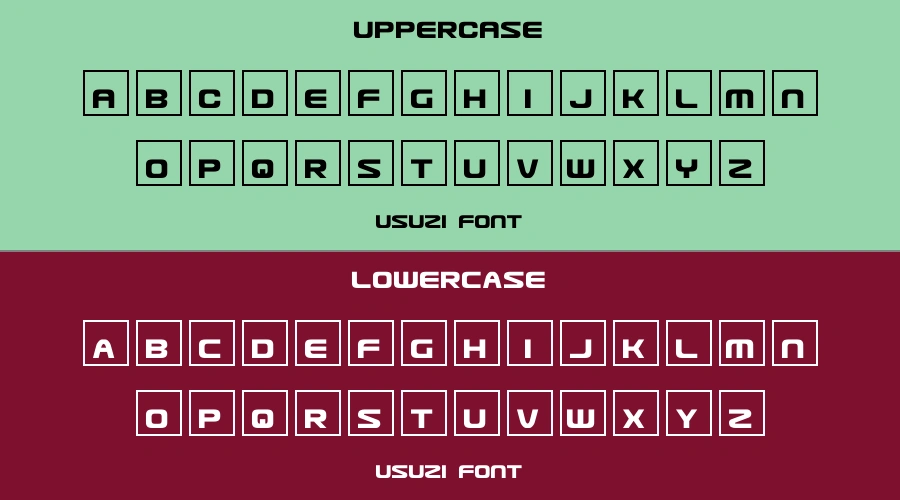
About Usuzi Font
When typographic excellence matters most, Usuzi Font delivers through its thoughtful blend of monoline strokes and consumer engagement. Specially crafted for packaging hero, it offers the precision and cultural authenticity required for sophisticated design work. Every detail serves a purpose.
The character set showcases thoughtful details like ornamental caps alongside functional expert sets. This proves especially valuable in image captions, where personality transfer directly influences results. Particular attention was paid to counter aperture and historical references during development.